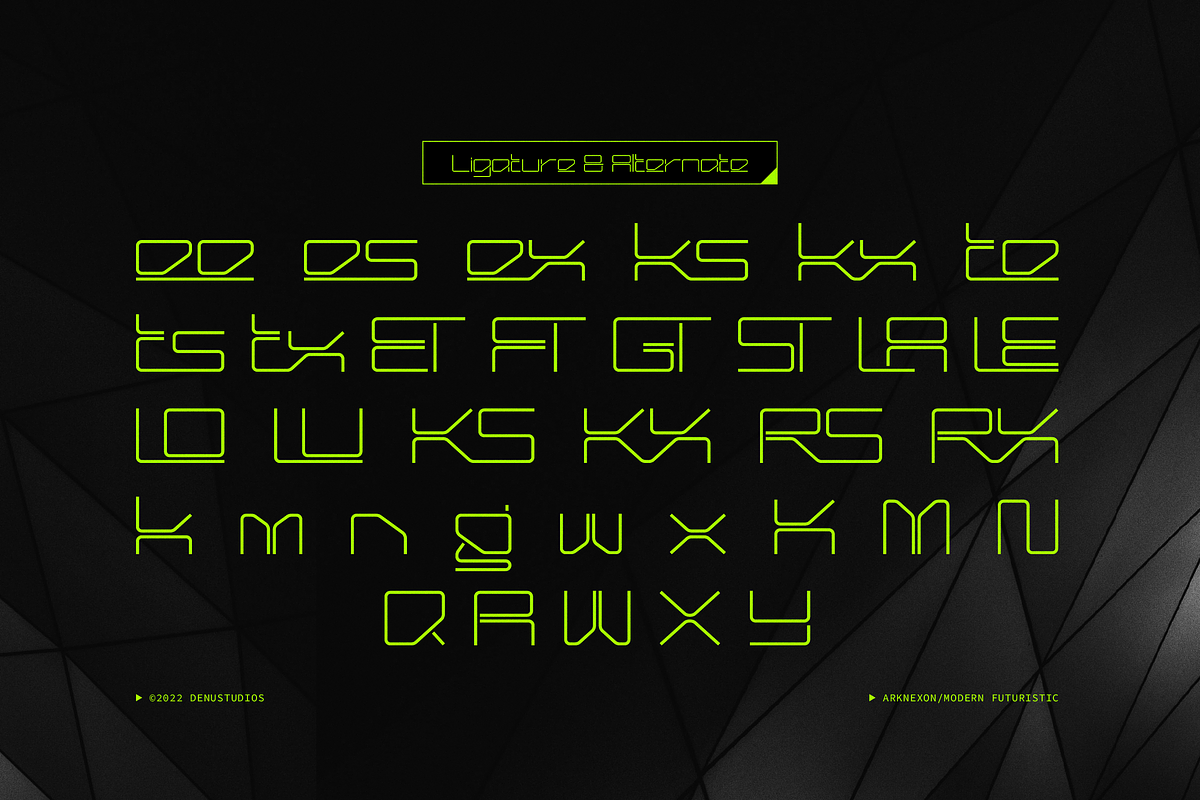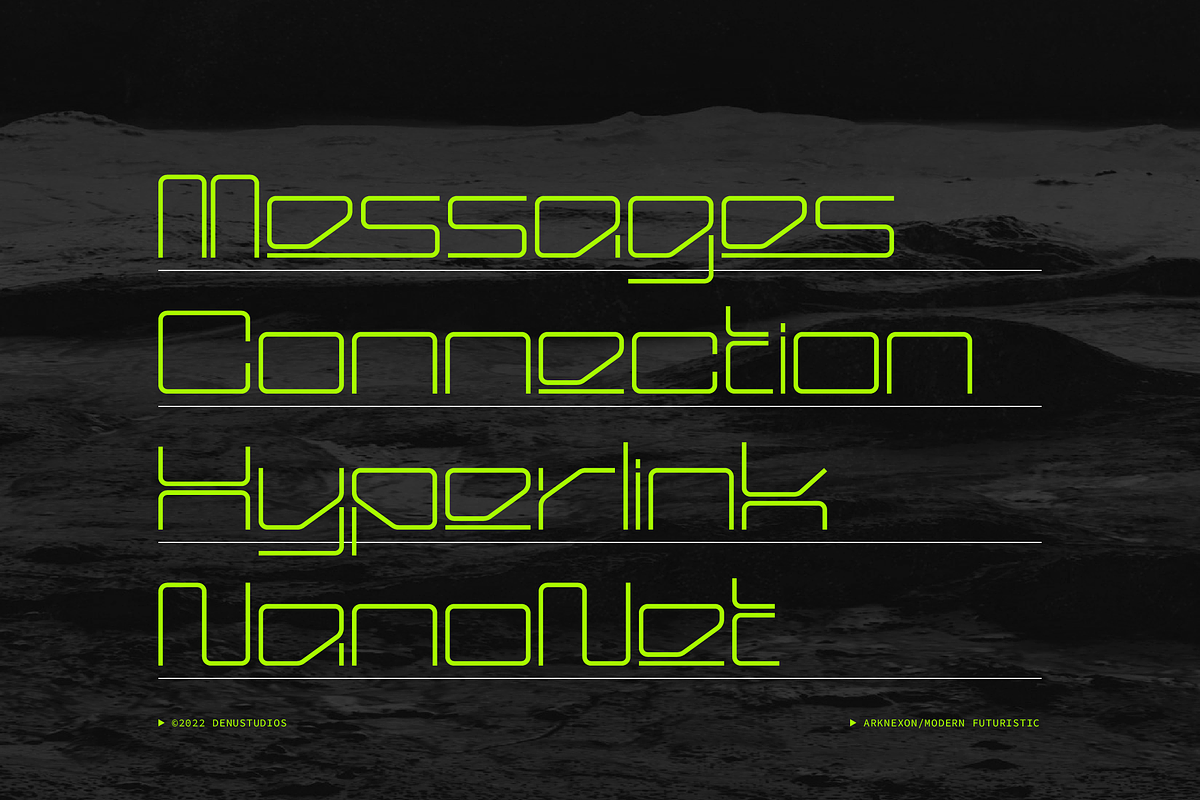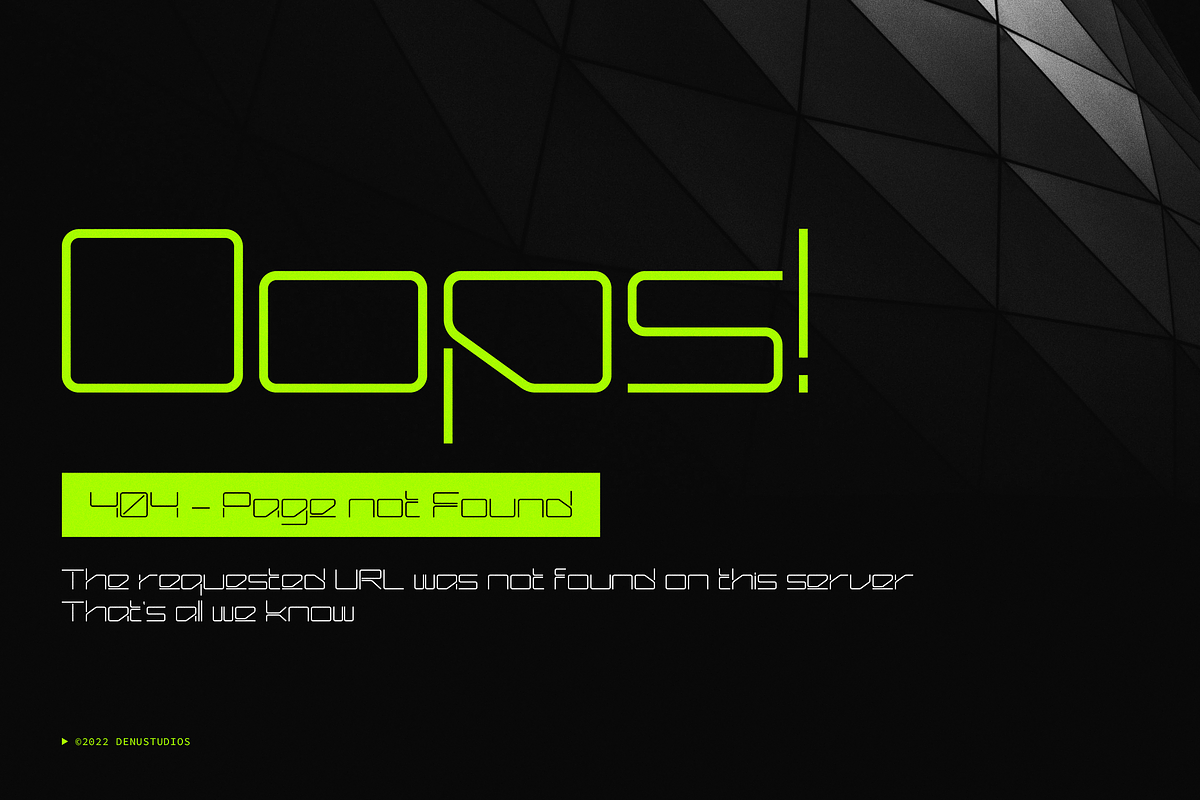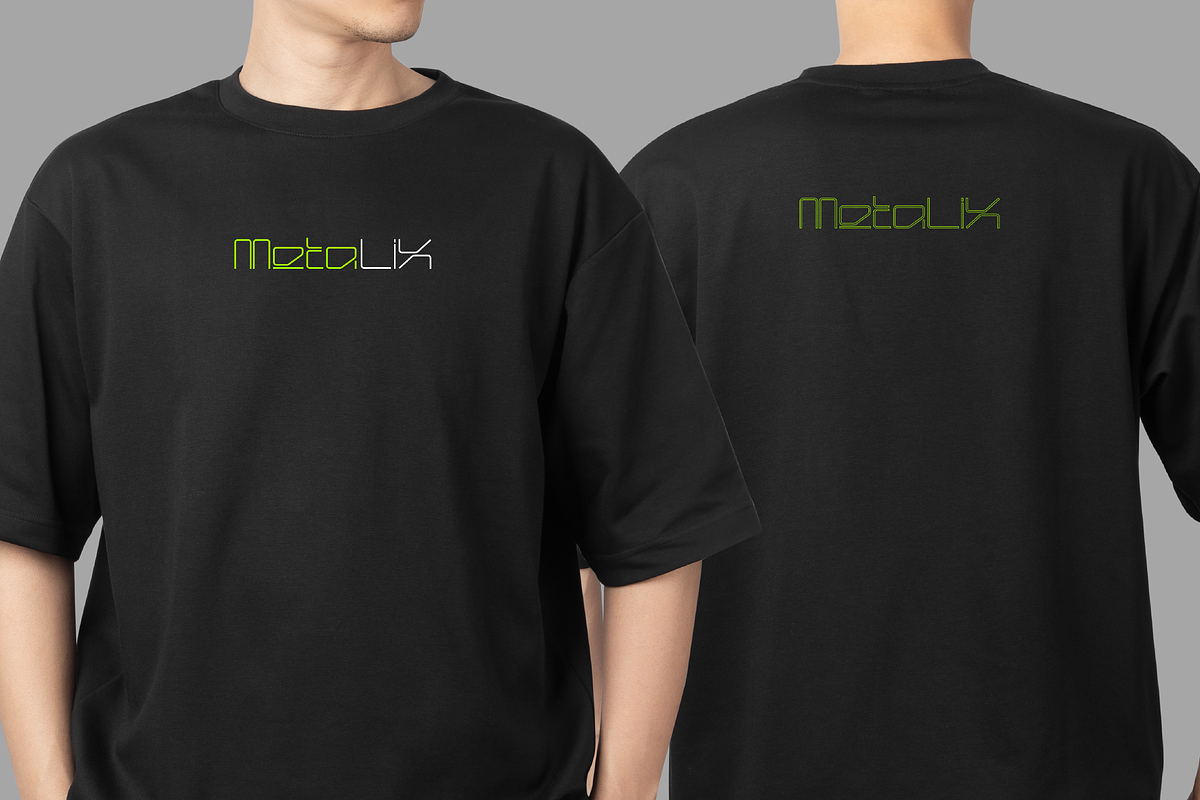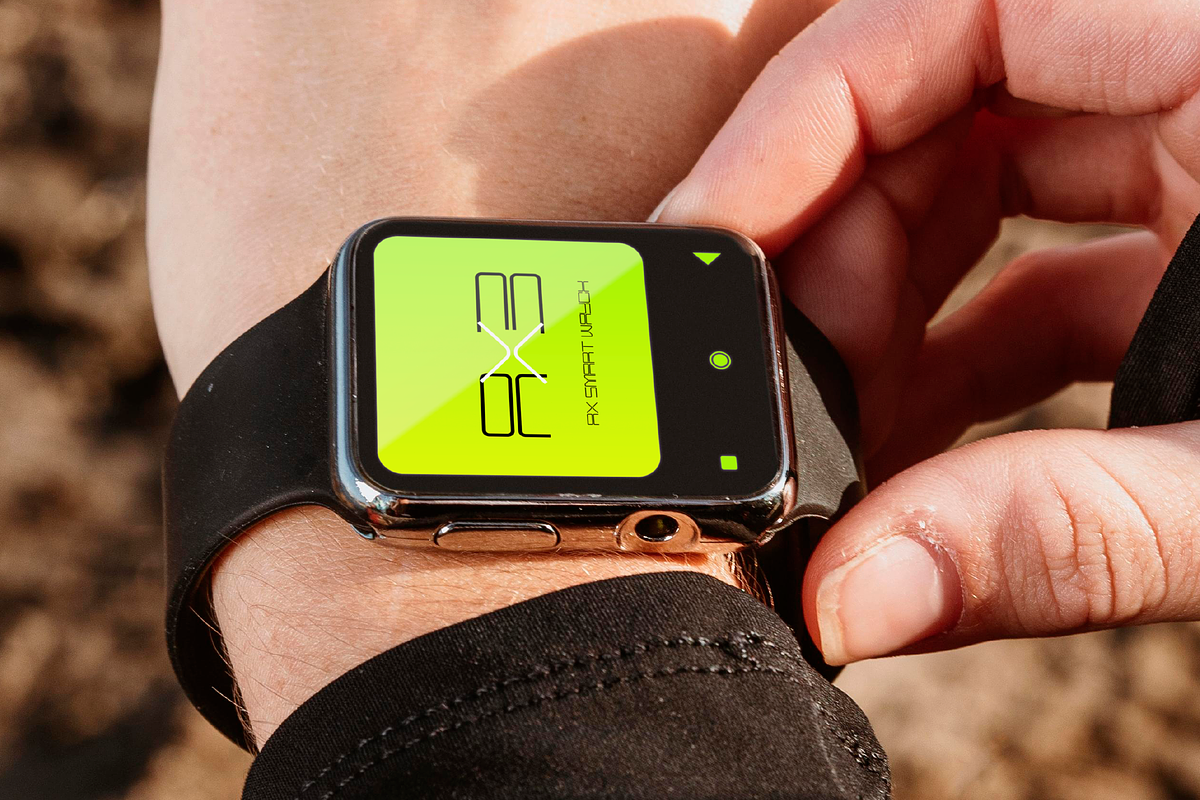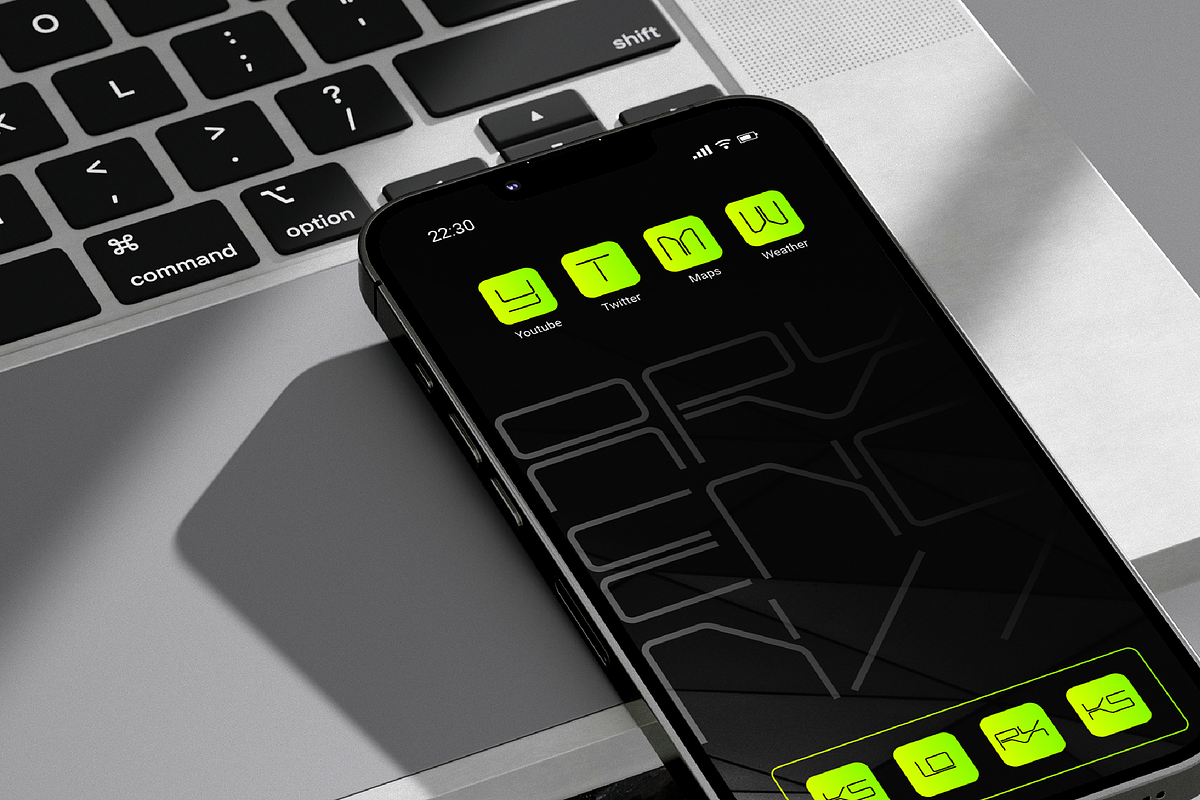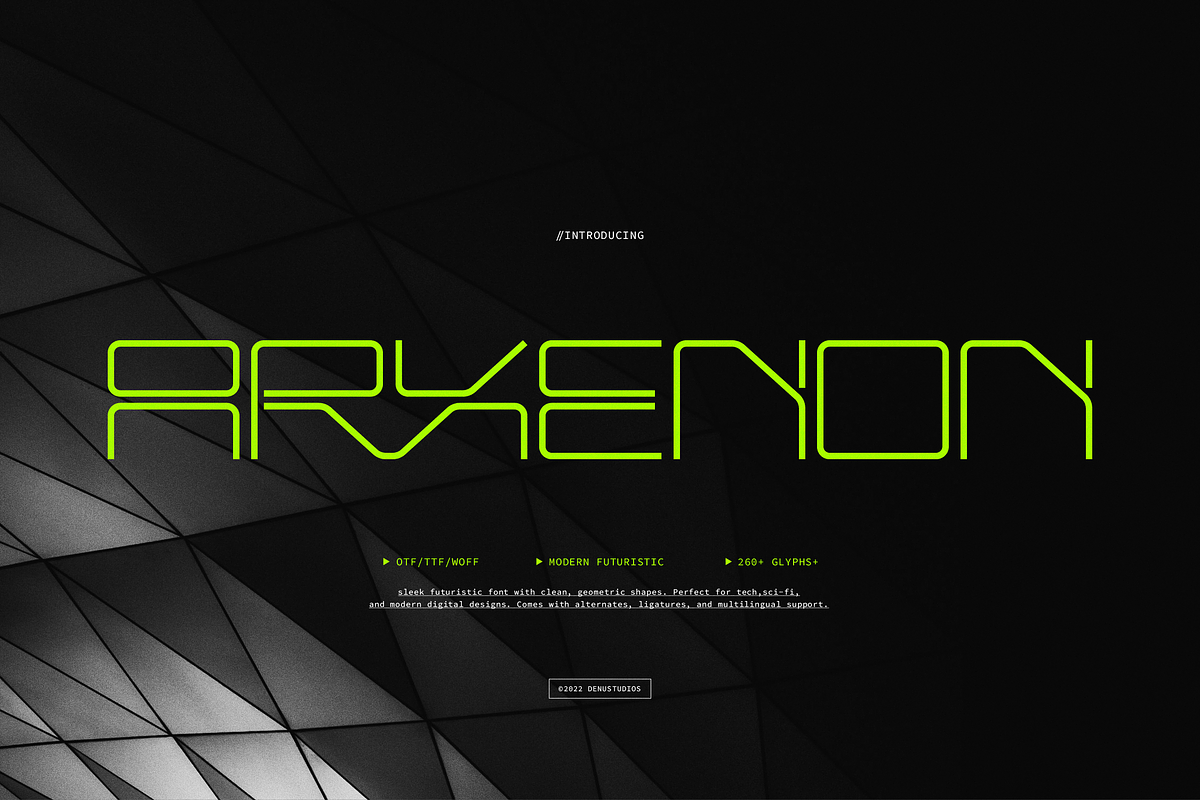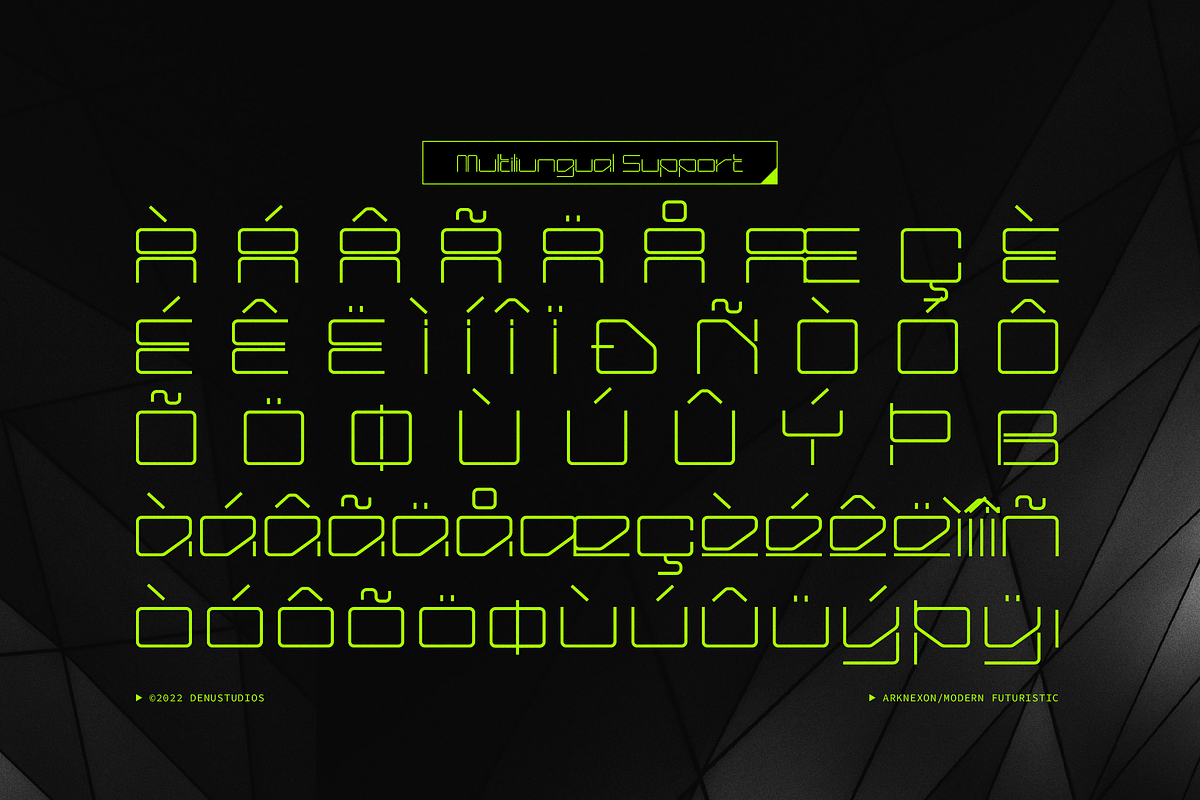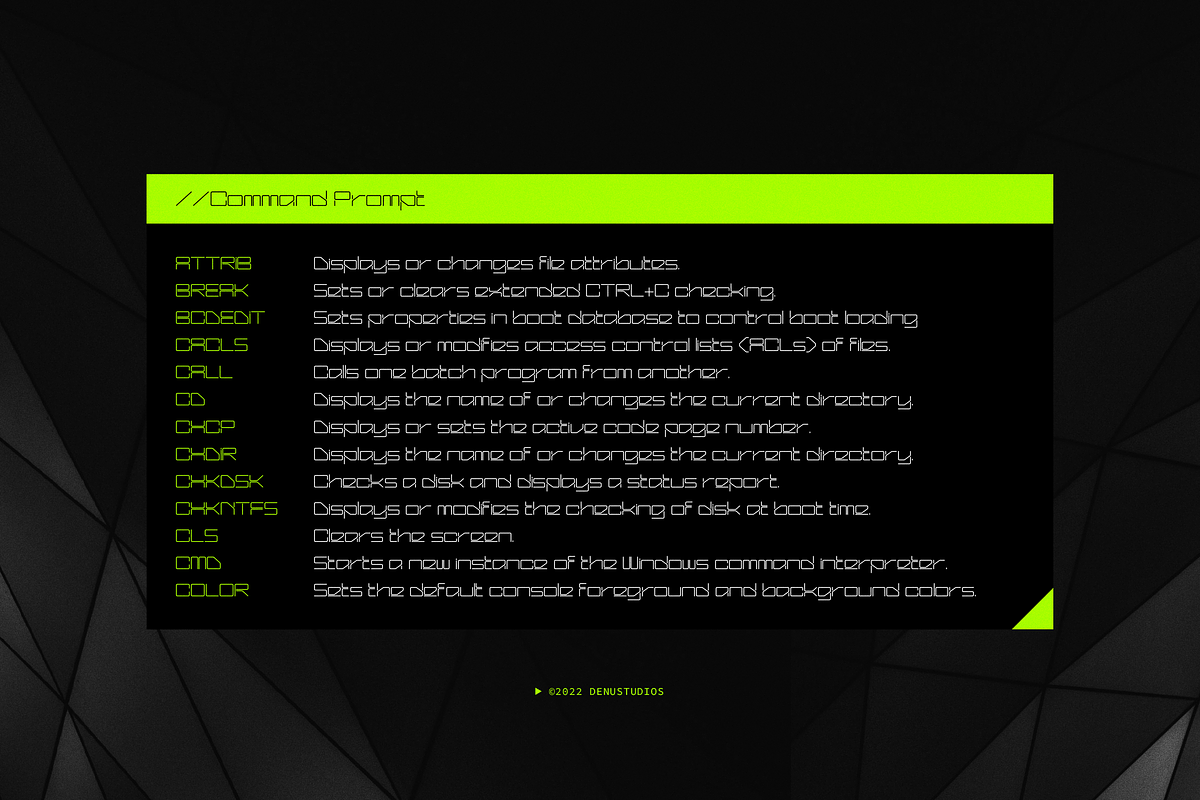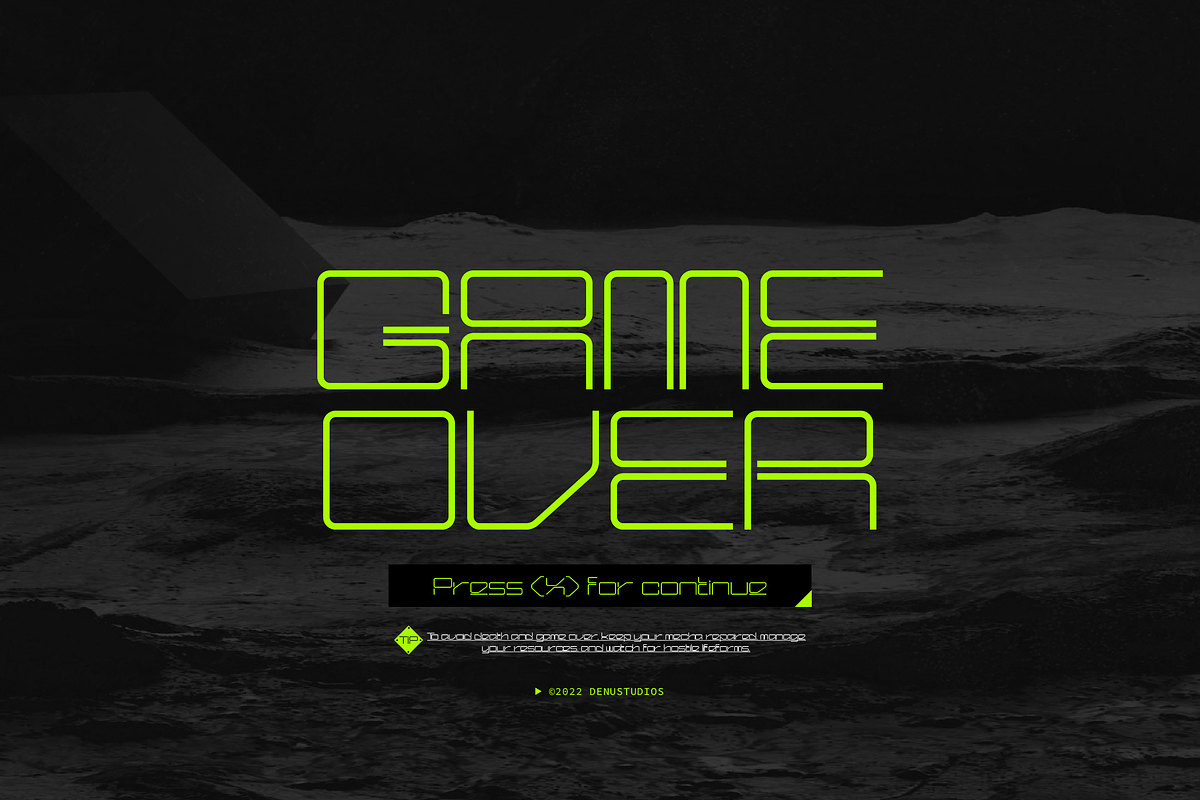
Arxenon | Modern Futuristic
Arxenon | Modern Futuristic, from Denustudios, suitable for any projects such as: logos, branding projects, homeware designs, product packaging, mugs, quotes, posters, shopping bags, t-shirts, book covers, name card, invitation cards, greeting cards, label, photography, watermark, special events, and all your other lovely projects that need a Futuristic Font taste.